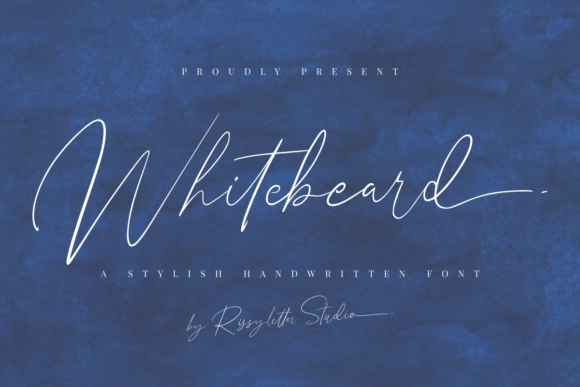
Journey into the realm of enchantment with Whitebeard Font, an exquisite script creation that exudes an air of whimsy and intrigue. Inspired by the captivating tales of old, this font draws upon the essence of classic cartoon animations, inviting you to weave captivating narratives with each stroke.
Whitebeard Font is not merely a collection of letters, but a portal to a world where imagination takes flight. Its carefully crafted curves and delicate flourishes capture the essence of a bygone era, transporting you to a realm where anything is possible. This font is more than just a font; it's a magic wand that transforms words into enchanting stories.
Whitebeard's versatility knows no bounds. Whether you're a wedding invitation designer seeking to evoke a sense of enduring romance, a photographer capturing life's most precious moments, or a creator of modern websites seeking to infuse a touch of nostalgia, this font will elevate your project to new heights. With its diverse range of applications, Whitebeard seamlessly adapts to your creative vision, ensuring a captivating outcome every time.
But it's not just its versatility that sets Whitebeard apart. This font is meticulously crafted with PUA encoding, granting you effortless access to a treasure trove of glyphs and swashes. Unleash your creativity and let your imagination run wild as you explore the endless possibilities that await within Whitebeard's enchanting world.
Immerse yourself in the enchanting realm of Whitebeard Font, where tales come alive and dreams take flight. Allow your creativity to flourish as you craft captivating wedding invitations that evoke timeless elegance, capture the essence of love in your photography, or create modern websites that exude an air of enchantment.
Whitebeard Font is more than just a collection of letters; it's a gateway to a world where imagination reigns supreme. Seize this opportunity to embark on a creative journey like no other, where stories are told through every stroke. Your projects will never be the same again.